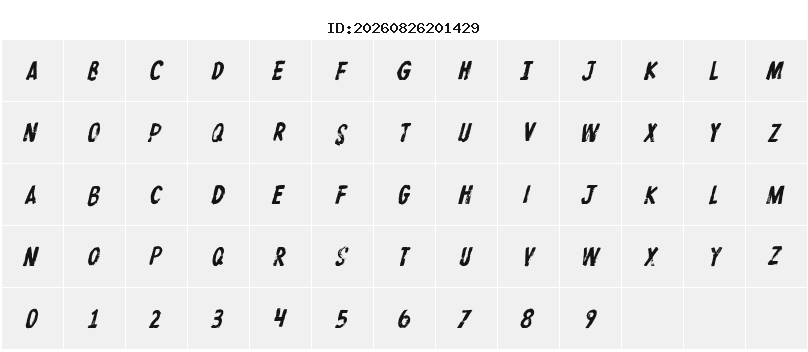
ProtestPaint BB Preview
• Font Name: ProtestPaint BB
• Font ID: NatePiekos.Blambot.com: ProtestPaint BB Italic: 2010
• Full Font Name: ProtestPaint BB Italic
• PostScript Name: ProtestPaintBB-Italic
• Designer: Nate Piekos
• Manufacturer: Nate Piekos. Blambot.com
About ProtestPaint BB.ttf